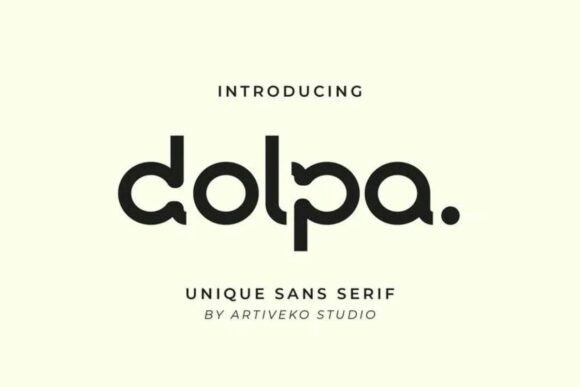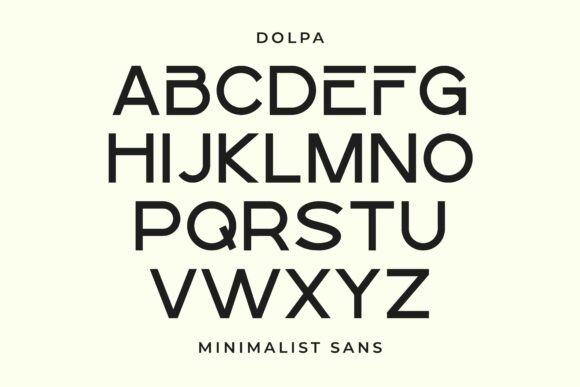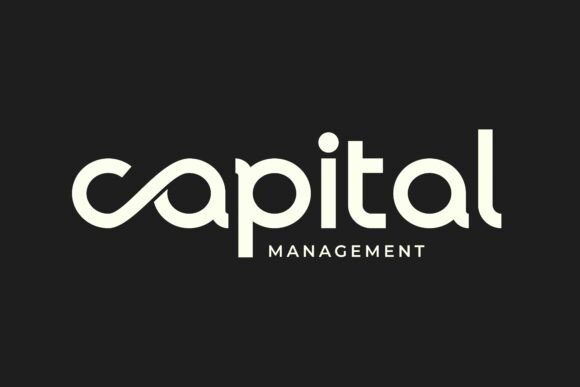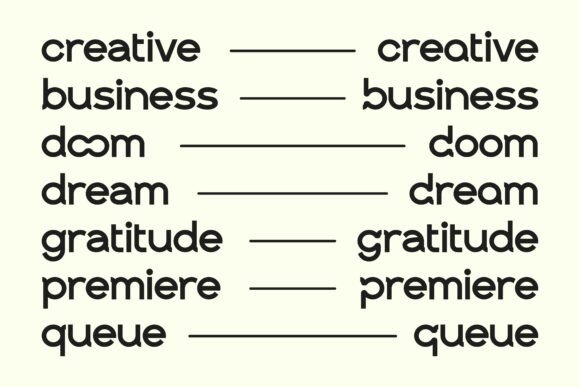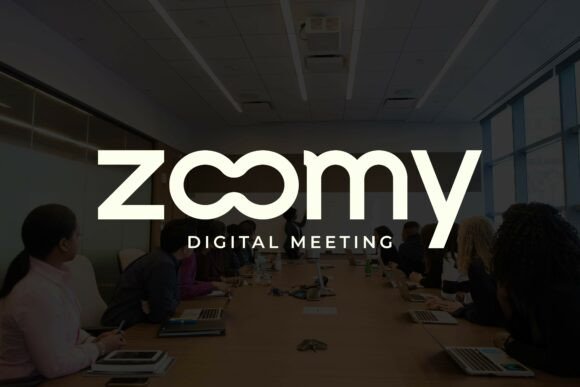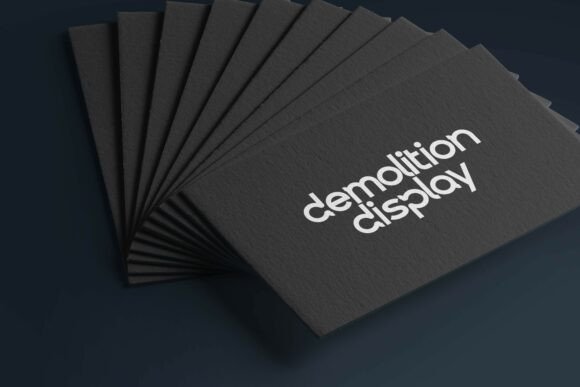
Dolpa Font
Dolpa is a sleek and contemporary sans serif font designed to bring clarity, balance, and timeless appeal to your typography. With its smooth curves, geometric construction, and well-spaced letterforms, Dolpa is perfect for branding, editorial layouts, packaging, website design, and social media graphics that demand a professional and modern look.